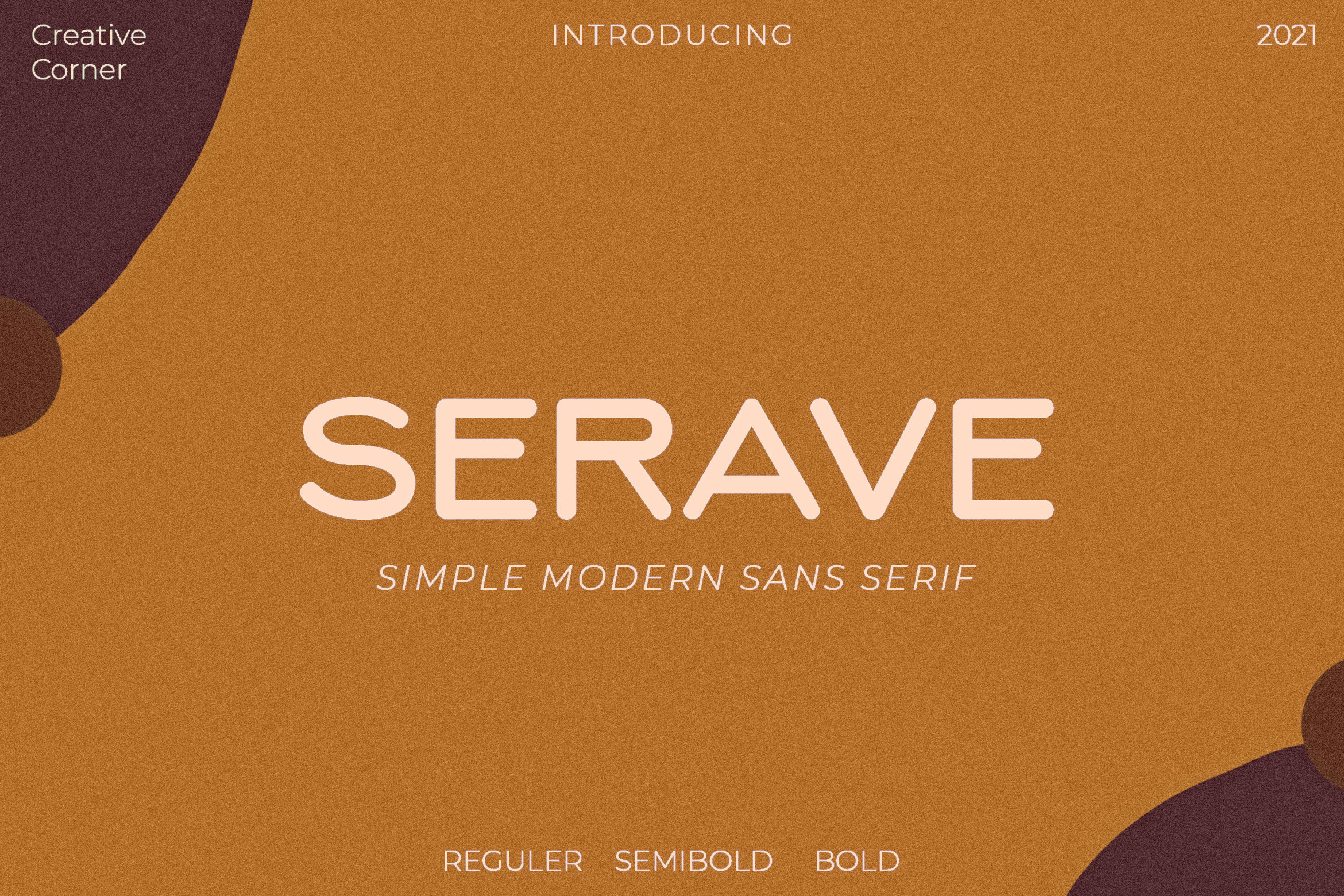
Serave - Soft Rounded Typeface
Serave is a Soft Rounded Sans Serif font . It's a very versatile font that works great in large and small sizes. Perfect for branding projects, Logo design, Clothing Branding, product packaging, magazine headers, or simply as a stylish text overlay to any background image.
- 3 Weights font
- Multiple Languages Supported